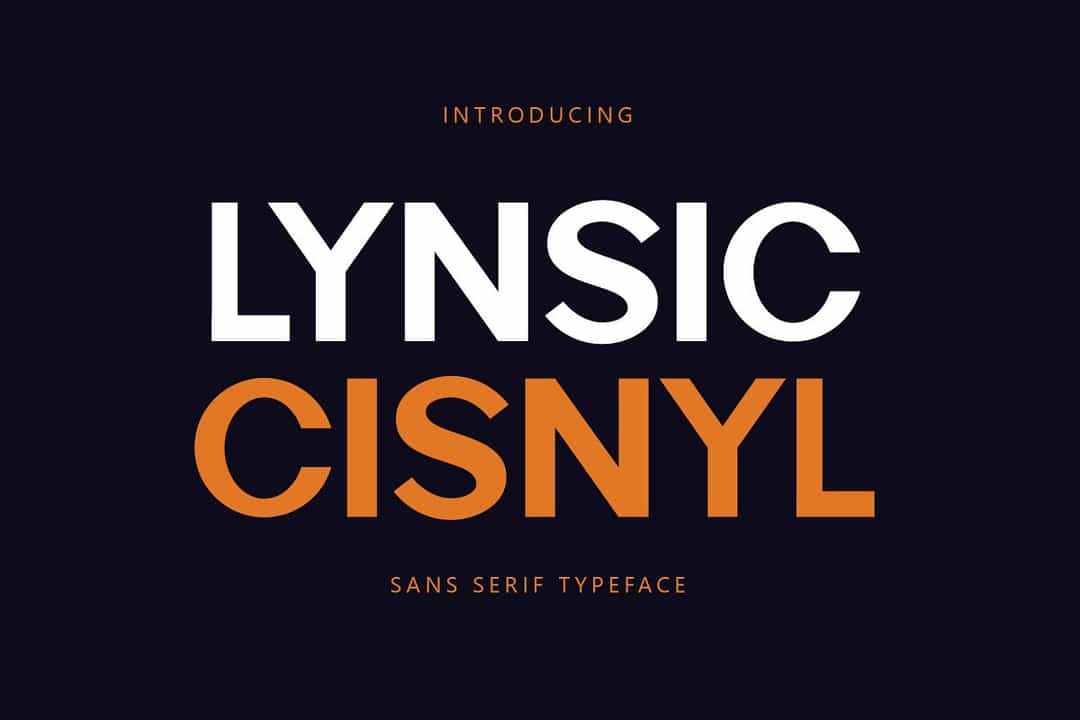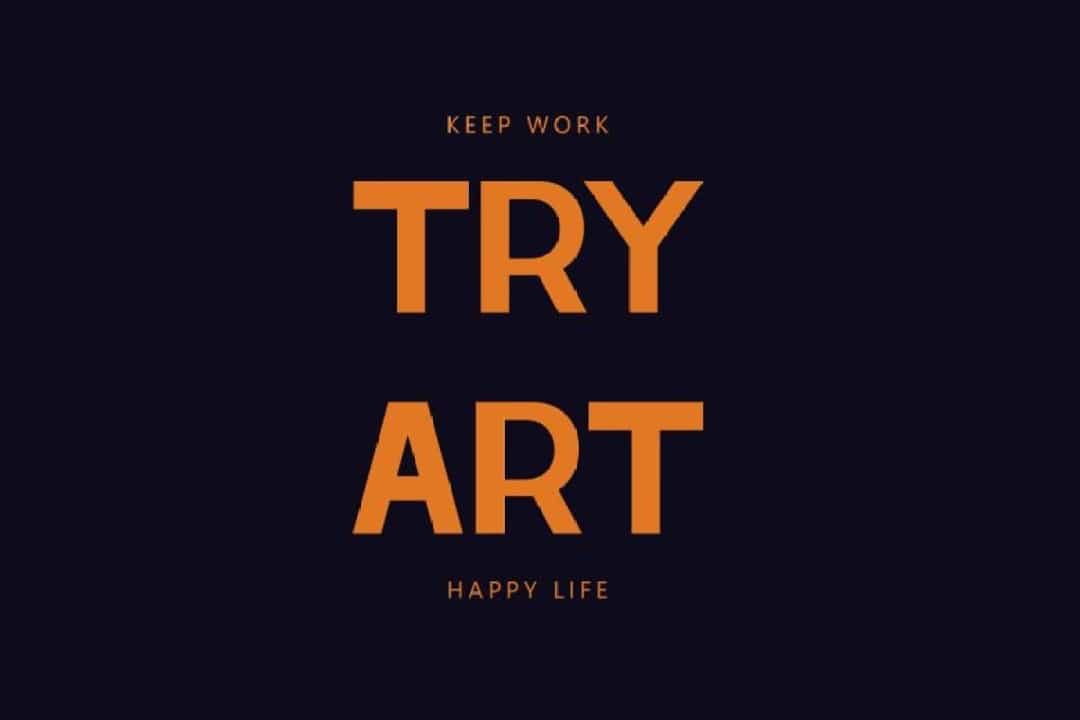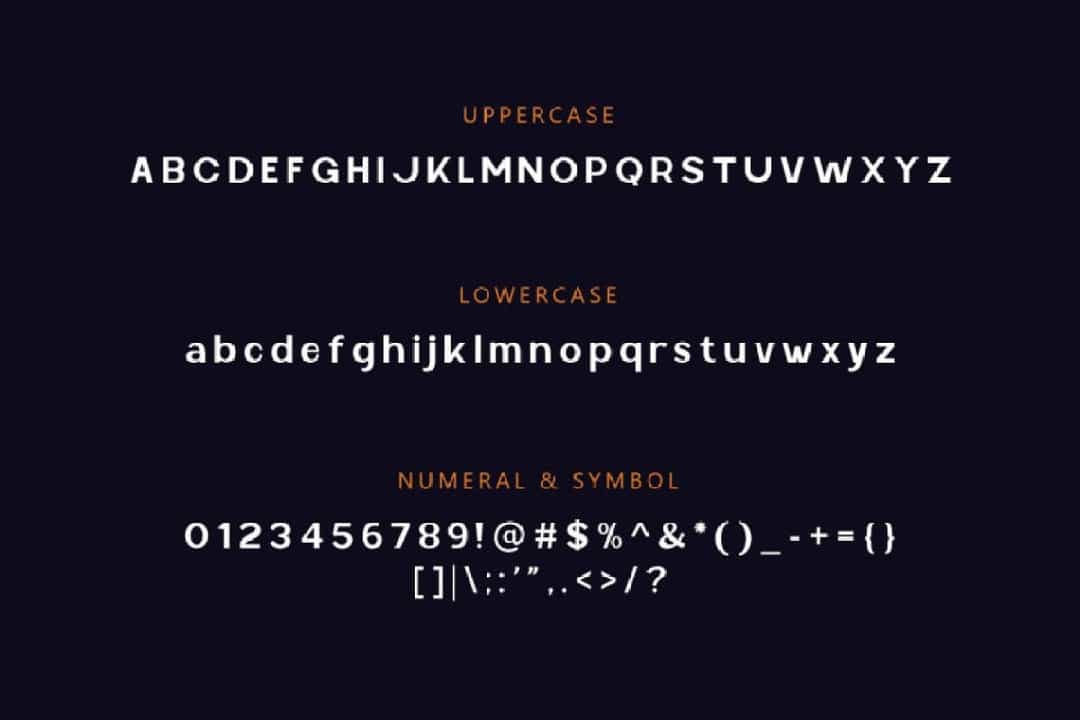
Lynsic Cisnyl Typeface
This is the Lynsic Cisnyl Sans Serif Typeface, it is a stunning font suitable for clothing designs, album arts, logos, branding, magazine, social media, and advertisements. Besides, this font can also be applied to other functions as well.